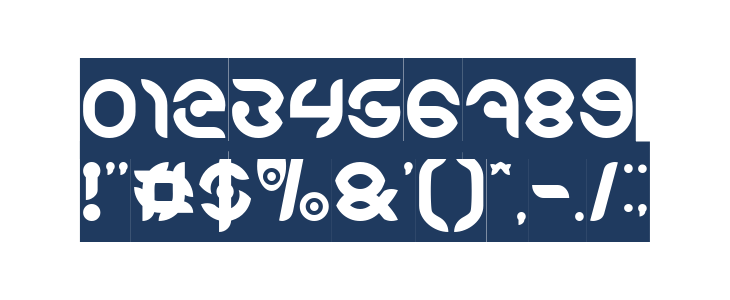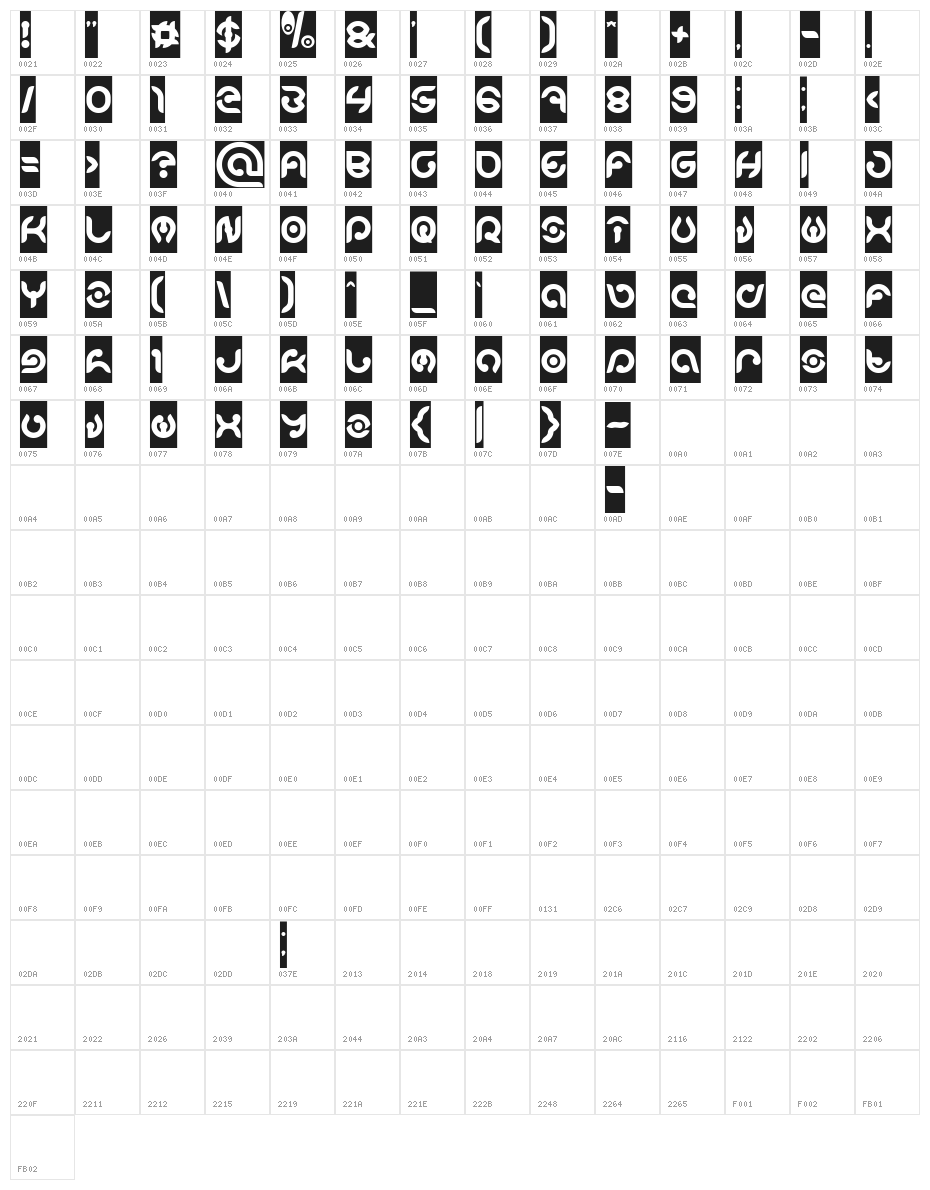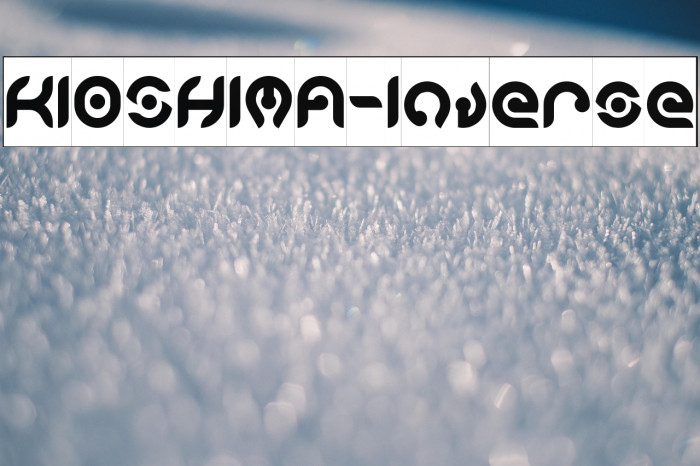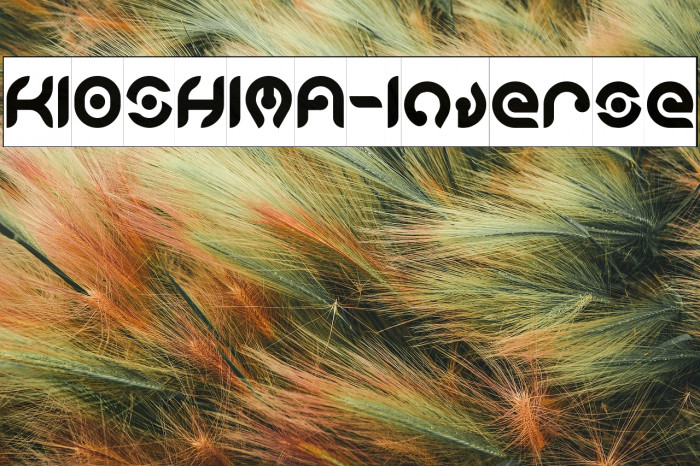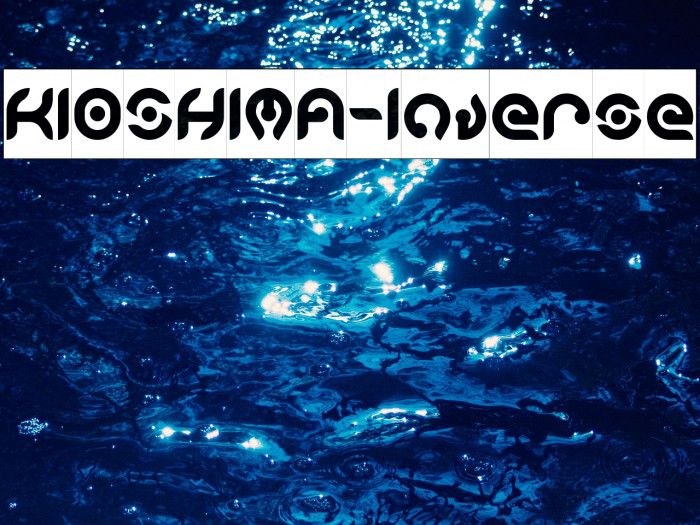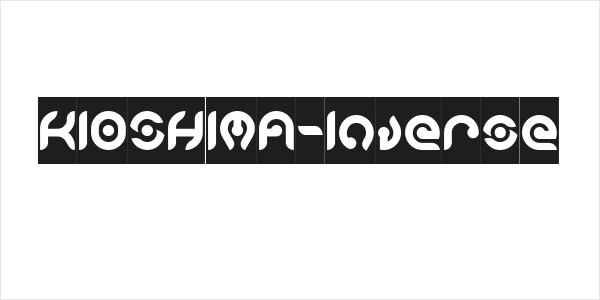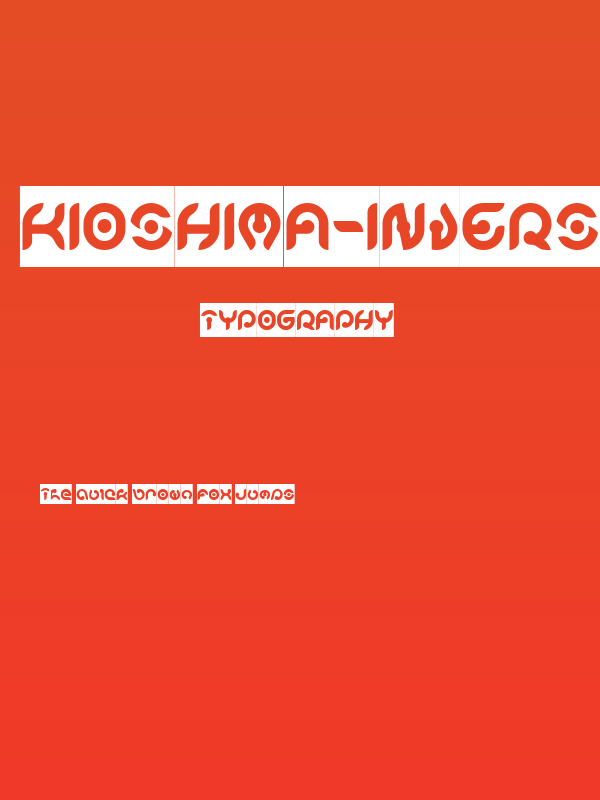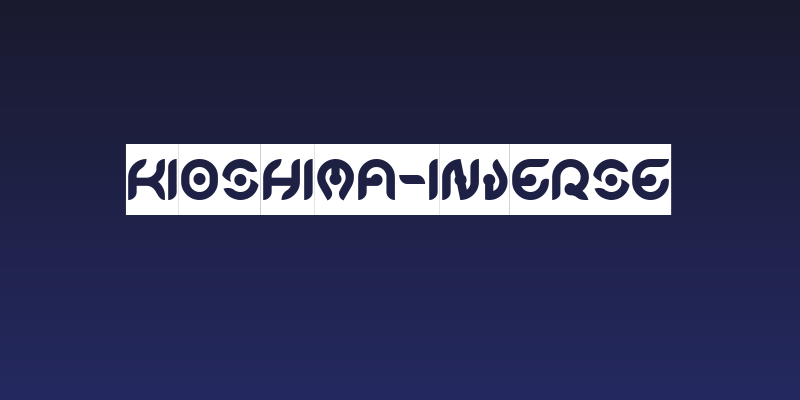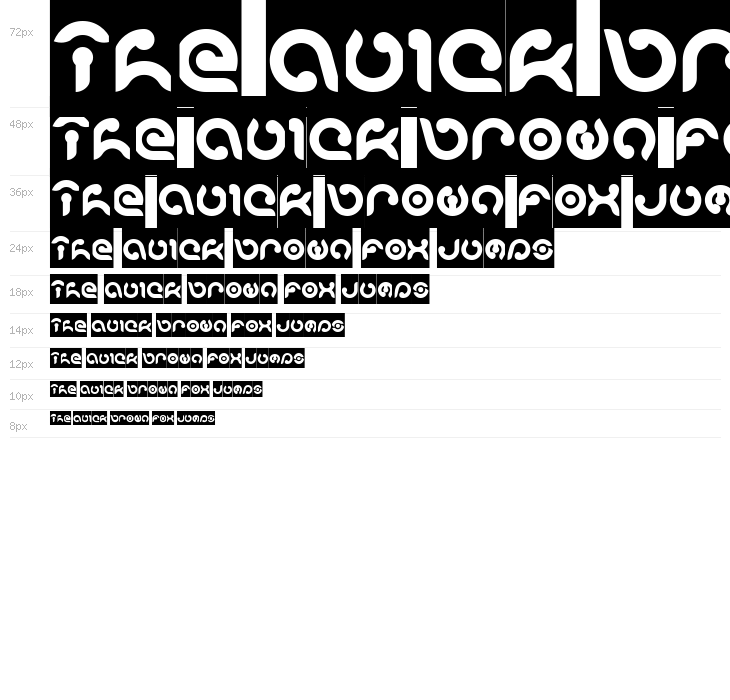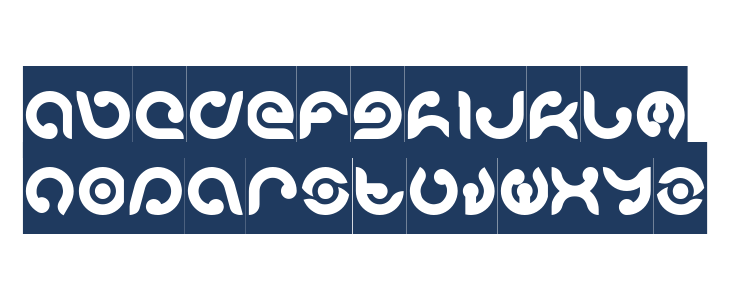
KIOSHIMA-Inverse Font
KIOSHIMA-Inverse Description
This font features a bold and futuristic design with a unique inverse style, where the negative space forms the primary shapes of the characters. The uppercase and lowercase letters maintain a consistent geometric form, creating a cohesive and modern look. The numbers and special characters follow the same design principles, ensuring uniformity across all glyphs. The font's distinct appearance makes it stand out, with each character having a rounded and enclosed shape that adds to its visual appeal. The overall design is both artistic and functional, suitable for projects that require a strong visual impact.
| Proposed Projects | Ideal for sci-fi themed designs, modern branding, digital art projects, and eye-catching posters. |